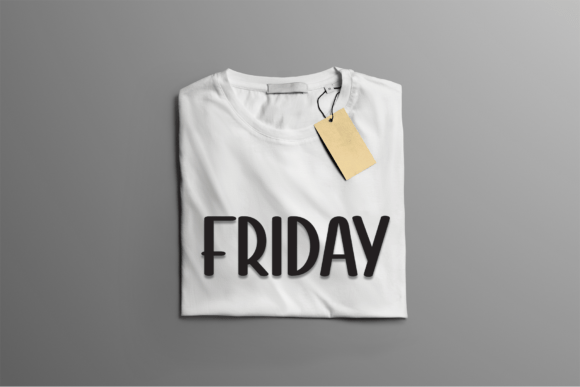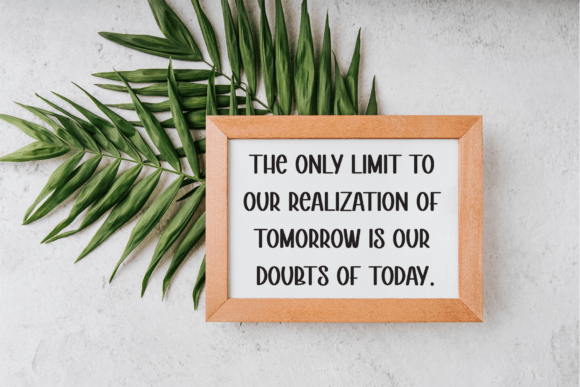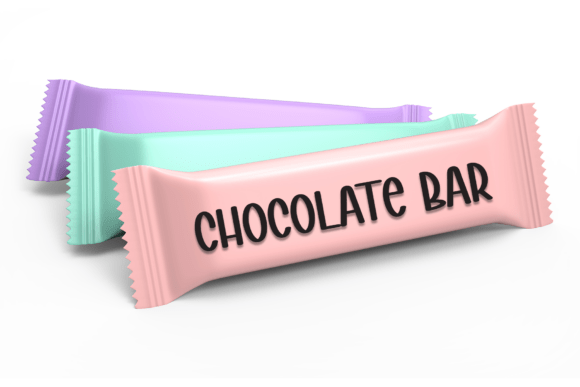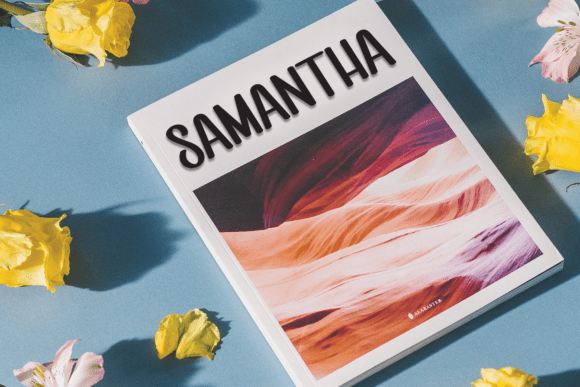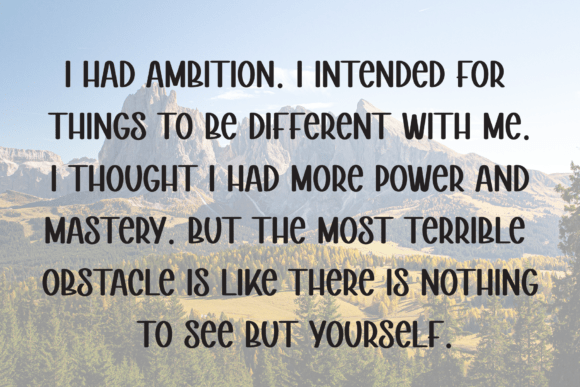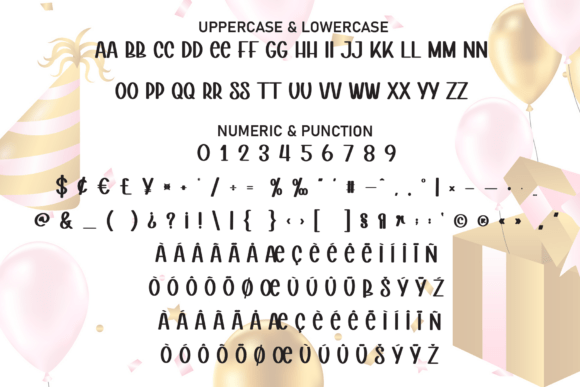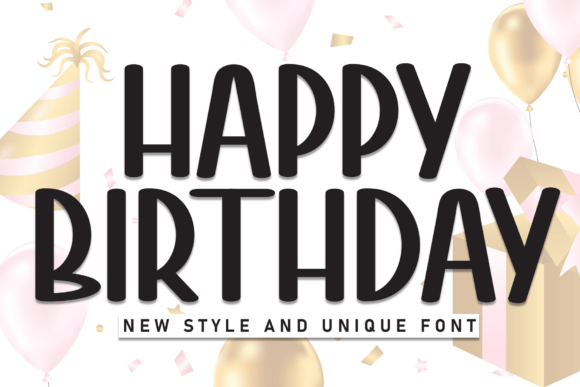
Happy Birthday Font: The Ultimate Choice for Impactful Designs
Are you looking for a font that can add a touch of excitement and energy to your designs? Look no further than the Happy Birthday Font! With its thick strokes, strong presence, and modern flair, this font is ideal for headlines, posters, branding, logos, and any project that needs to be loud and clear.
What Makes Happy Birthday Font Stand Out?
The Happy Birthday Font is a game-changer for designers and crafters who want to create stunning visual content. Its unique characteristics make it perfect for a wide range of applications, from promotional materials to editorial layouts. Here are some of the key features that set this font apart:
- Thick Strokes: The Happy Birthday Font features thick, bold strokes that give it a strong and confident look. This makes it perfect for headlines, titles, and other applications where you want to grab the viewer’s attention.
- Modern Flair: This font has a modern and sleek design that will add a touch of sophistication to your designs. Whether you’re creating a logo, brochure, or social media post, the Happy Birthday Font will give your content a fresh and contemporary look.
- High Impact: The Happy Birthday Font is designed to make a statement. Its bold and eye-catching design ensures that your message will be seen and remembered.
Why Choose Happy Birthday Font for Your Designs?
There are many reasons why the Happy Birthday Font is an excellent choice for designers and crafters. Here are some of the benefits of using this font in your projects:
- Effortless Style: The Happy Birthday Font delivers high impact with effortless style. Its bold design ensures that your content will stand out without looking over-the-top or overwhelming.
- Versatility: This font is versatile and can be used for a wide range of applications, from print materials to digital content. Whether you’re creating a poster, logo, or social media post, the Happy Birthday Font will look great.
- Easy to Read: Despite its bold design, the Happy Birthday Font is easy to read and understand. This makes it perfect for headlines, titles, and other applications where you want to communicate a message quickly and effectively.
How to Use Happy Birthday Font in Your Designs?
Using the Happy Birthday Font in your designs is easy. Here are some tips to get you started:
- Headlines and Titles: Use the Happy Birthday Font for headlines and titles to add a touch of excitement and energy to your content.
- Posters and Flyers: This font is perfect for posters and flyers, where you want to grab the viewer’s attention and communicate a message quickly.
- Branding and Logos: The Happy Birthday Font is ideal for branding and logos, where you want to create a strong and memorable visual identity.
- Editorial Layouts: Use this font for editorial layouts, such as magazine covers, articles, and blog posts, to add a touch of sophistication and style.
The Happy Birthday Font is an excellent choice for designers and crafters who want to create stunning visual content. With its thick strokes, strong presence, and modern flair, this font is ideal for headlines, posters, branding, logos, and any project that needs to be loud and clear. Whether you’re creating promotional materials or a standout editorial layout, this typeface delivers high impact with effortless style. So why wait? Download the Happy Birthday Font today and take your designs to the next level!